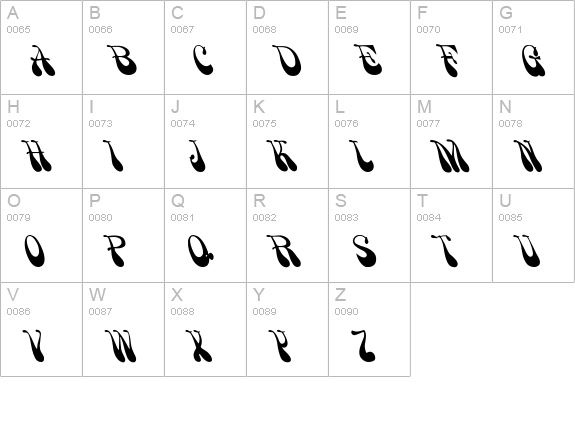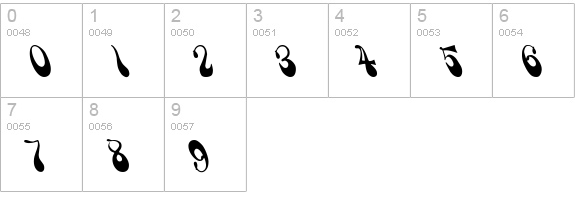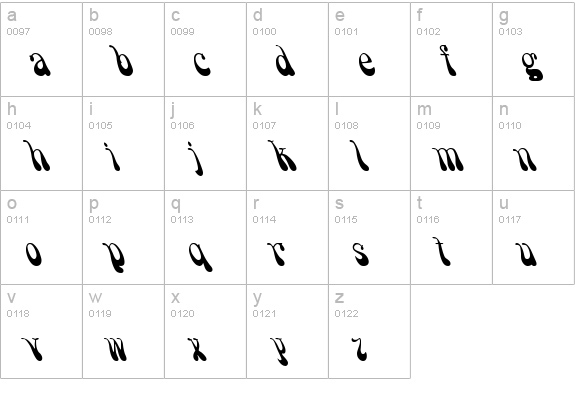
PsychedelicSmok Font Details
PsychedelicSmok font is a vibrant and dynamic typeface that exudes a sense of creativity and whimsy. Its swirling and psychedelic design is perfect for adding a touch of uniqueness to any project. With its bold and eye-catching appearance, PsychedelicSmok font is sure to make a statement and captivate the viewer's attention. The best part? PsychedelicSmok font is completely free to download at FontsMarket.com. This means that you can easily access this one-of-a-kind font and use it in your personal or commercial projects without any cost. So why wait? Add a splash of color and personality to your designs with PsychedelicSmok font today!